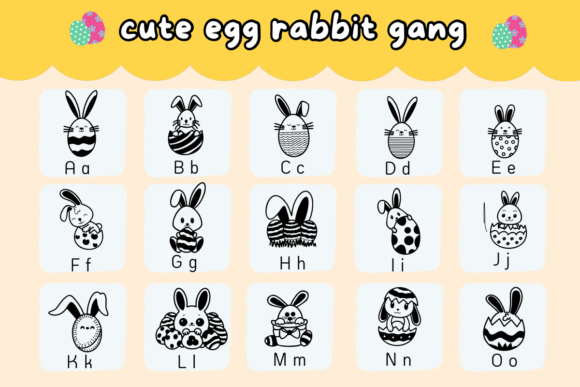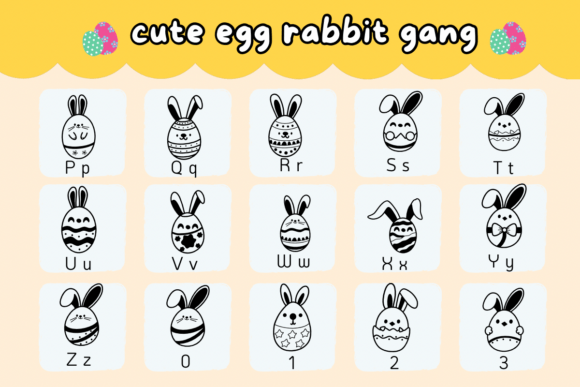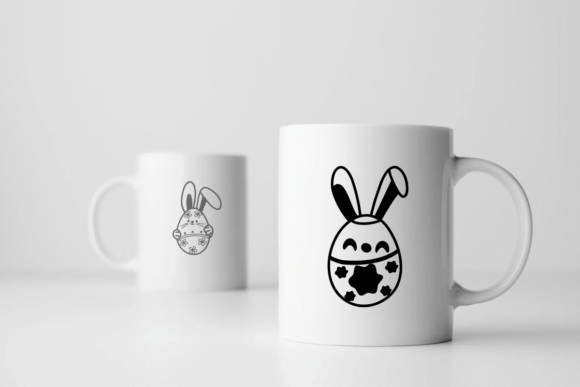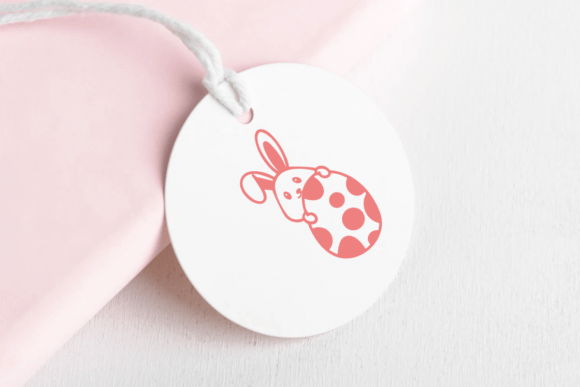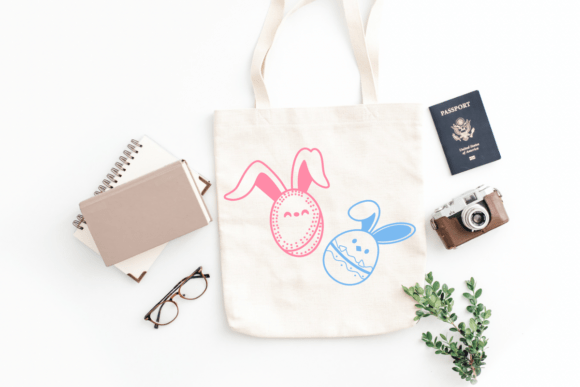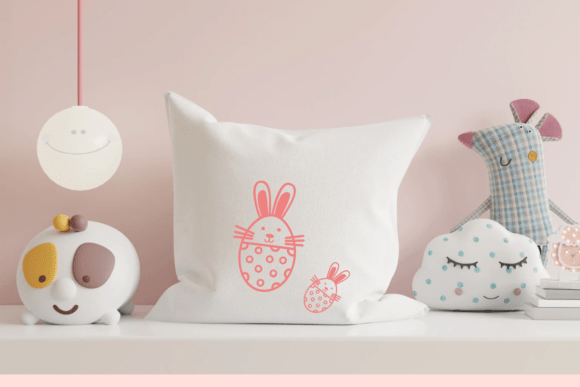
Cute Egg Rabbit Gang Font: A Playful Dingbats Font for Cheerful Visual Storytelling
Are you looking for a unique and playful font to add a touch of whimsy to your designs? Look no further than the Cute Egg Rabbit Gang font! This highly thematic dingbats font is designed specifically for cheerful visual storytelling, making it perfect for seasonal holiday marketing, children’s event stationery, creative product stickers, and vibrant social media accents.
A Diverse Collection of Illustrated Icons
The Cute Egg Rabbit Gang font is a collection of illustrated icons that merge seasonal Easter egg silhouettes with whimsical rabbit characters. Each graphic is carefully designed to be visually appealing, with a clean, monolinear stroke weight that gives the font a modern and fresh feel. The collection consists of a diverse array of icons, ensuring that you have a wide range of options to choose from when creating your designs.
Customized, Artisanal Depth
What sets the Cute Egg Rabbit Gang font apart is its use of internal patterns, such as zig-zags, floral motifs, and stripes. These patterns add a sense of customized, artisanal depth to each graphic, making them stand out from more generic fonts. The attention to detail in this font is impressive, and it’s clear that the designers have put a lot of thought into creating a unique and visually appealing product.
Perfect for Seasonal Holiday Marketing
As a font specifically designed for Easter and spring-themed designs, the Cute Egg Rabbit Gang font is a premier resource for seasonal holiday marketing. Whether you’re creating promotional materials for an Easter egg hunt, a spring sale, or a holiday-themed product launch, this font is sure to add a touch of festive fun to your designs.
Great for Children’s Event Stationery
The Cute Egg Rabbit Gang font is also perfect for creating children’s event stationery, such as invitations, flyers, and posters. The playful and whimsical nature of the font makes it ideal for kids’ parties, Easter egg hunts, and other fun events. The font’s clean and modern design ensures that it’s easy to read and understand, even for young children.
Ideal for Creative Product Stickers
If you’re a crafty person who loves to create handmade products, the Cute Egg Rabbit Gang font is a great choice for your product stickers. The font’s playful and colorful design makes it perfect for labeling products, packaging, and marketing materials. Whether you’re selling Easter-themed crafts, candies, or other spring-inspired products, this font is sure to add a touch of personality to your branding.
Vibrant Social Media Accents
The Cute Egg Rabbit Gang font is also great for adding a pop of color and personality to your social media designs. Whether you’re creating graphics for Instagram, Facebook, or Twitter, this font is sure to make your posts stand out. The font’s playful and whimsical nature makes it perfect for creating engaging and shareable content that will resonate with your audience.
Key Features of the Cute Egg Rabbit Gang Font
- Highly thematic and playful dingbats font
- Diverse collection of illustrated icons
- Clean, monolinear stroke weight
- Internal patterns, such as zig-zags, floral motifs, and stripes
- Perfect for seasonal holiday marketing, children’s event stationery, creative product stickers, and vibrant social media accents
The Cute Egg Rabbit Gang font is a unique and playful dingbats font that’s perfect for designers and crafters looking to add a touch of whimsy to their designs. With its diverse collection of illustrated icons, clean and modern design, and customizable internal patterns, this font is sure to be a hit with anyone looking to create cheerful and engaging visual content. Whether you’re designing for Easter, spring, or just looking for a fun and playful font, the Cute Egg Rabbit Gang font is a great choice.